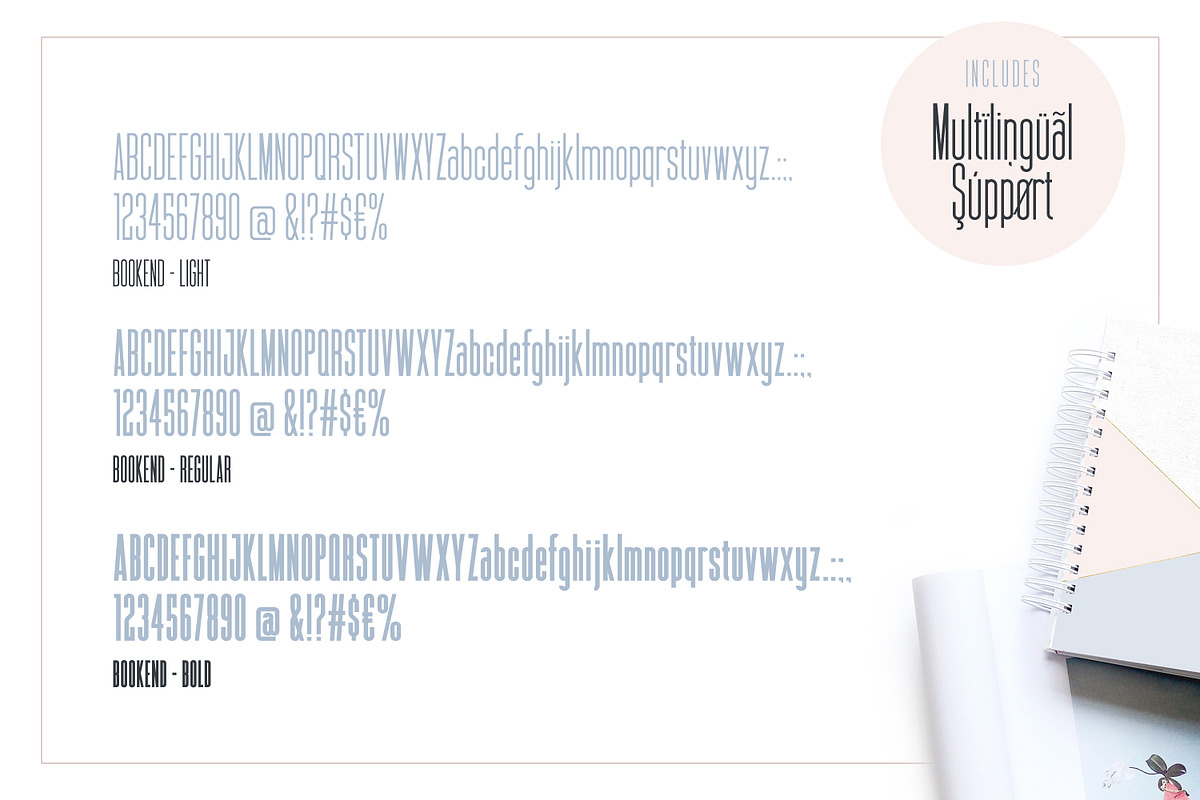
BOOKEND Supercondensed
Introducing BOOKEND Supercondensed.
Make a statement with this versatile sans display typeface. With it's super clean lines and clear readability, Bookend is perfect for headlines, logotypes, branding materials, posters, and more.
Comes in 3 weights - Light, Regular and Bold. With Multilingual Support.